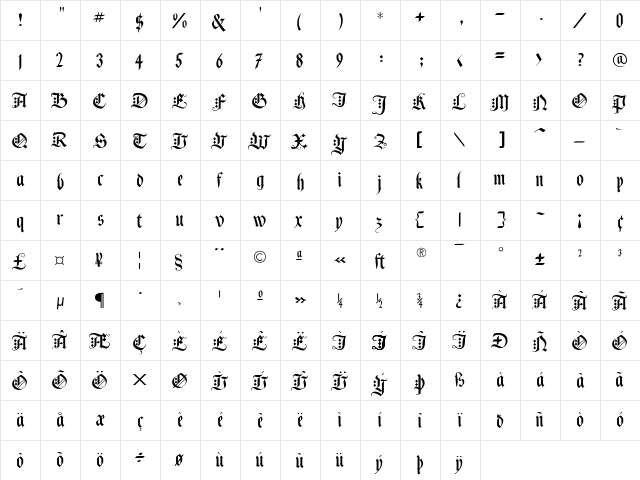
BlackKnightFLF Regular
Design Context for BlackKnightFLF Typeface
BlackKnightFLF is a composed and adaptable typeface that performs quietly and consistently across a wide range of design contexts.